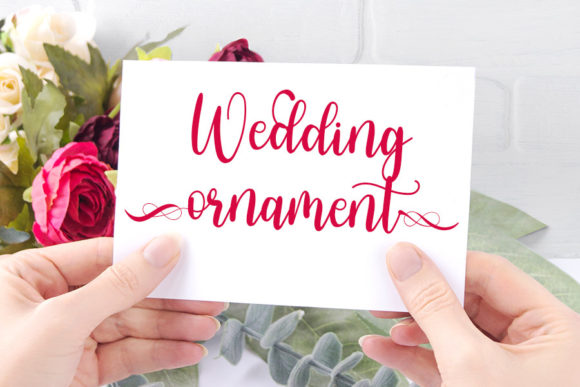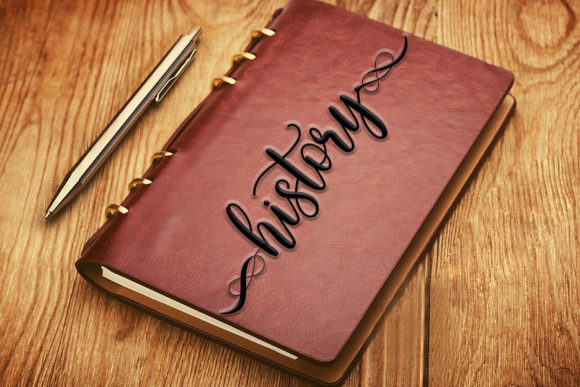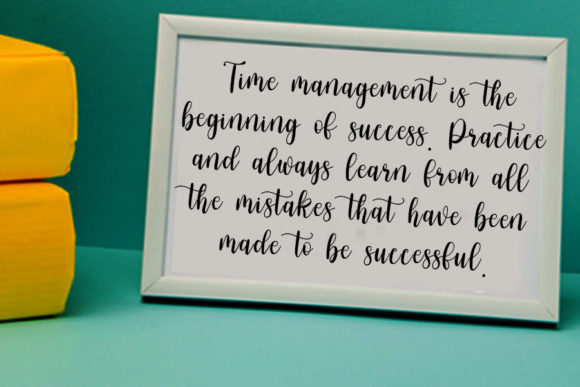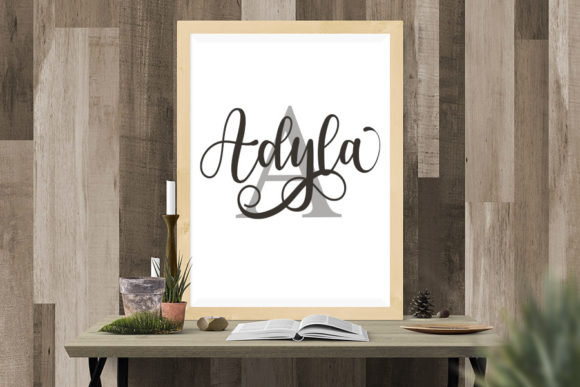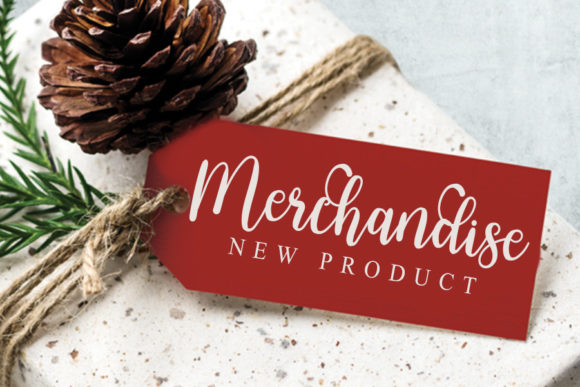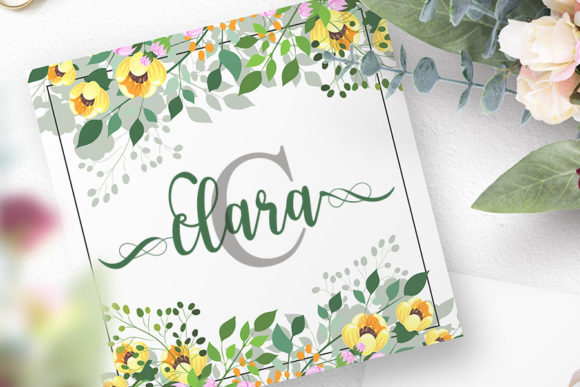
The Perfect Addition to Your Font Library: Baby Golla Font
Have you ever been in the middle of a creative project, struggling to find the perfect font to bring your vision to life? I know I have. There’s nothing quite like the thrill of finally discovering that elusive font that makes all the difference. For me, that font was Baby Golla, a dazzling script font that has become a staple in my design arsenal.
Baby Golla Font is a beautifully crafted font that’s designed to elevate any project. Whether you’re working on a wedding invitation, a branding campaign, or a digital magazine, this font is sure to impress. Its intricate details and elegant flair make it the perfect addition to any font library, and its PUA encoding ensures that you can access all the glyphs and swashes you need to create truly stunning designs.
Baby Golla Font Key Features
- Font Family: Baby Golla is a unique, hand-drawn font designed to resemble a baby’s handwriting.
- Resolution: Baby Golla is designed to be scalable, allowing it to be used at high resolutions without losing its unique, hand-drawn feel.
- Characters and Glyphs: Baby Golla includes a wide range of characters, including uppercase and lowercase letters, numbers, punctuation marks, and special characters.
Baby Golla Font Review
Overall, I’d say the Baby Golla font is a charming and playful script font that could add a lot of character to your designs. ✨ Here are some of the things that work well:
- Unique, hand-drawn feel that sets it apart from other script fonts.
- Versatile and suitable for a wide range of designs, from children’s books to fashion brands.
- Easy to read, even in smaller font sizes.
However, like any font, Baby Golla has its limitations. ⚠️ Here are some of the things to keep in mind:
- Some letters may not be as legible as others, which could be a problem for certain designs.
- Lack of support for non-English languages may limit its use for global audiences.
- May not be the best choice for formal or professional designs, due to its playful and informal feel.
Overall, I think the Baby Golla font is a great choice for designers looking to add a bit of whimsy and personality to their designs. Just be aware of its limitations and use it thoughtfully to get the best results.
For the best results, use Baby Golla Font in designs where a playful, handwritten feel is desired, such as:
– Children’s book covers
– Party invitations
– Handmade cards
– Branding for creative or artistic businesses